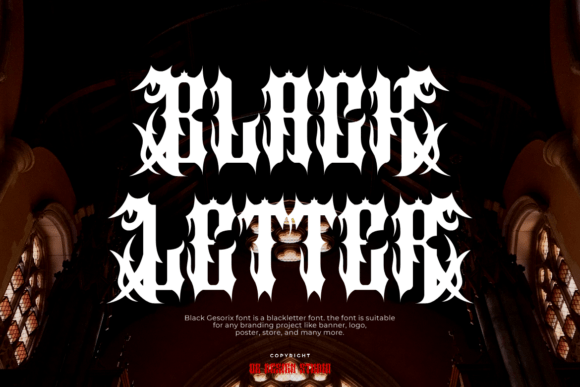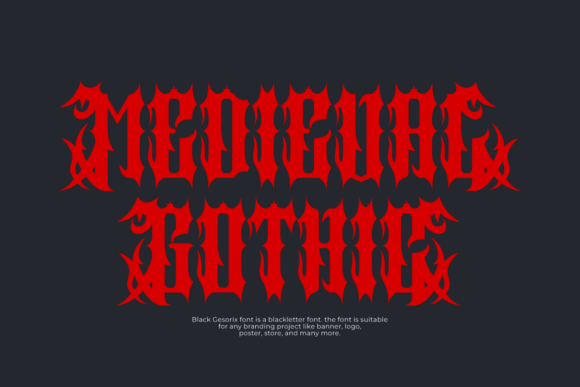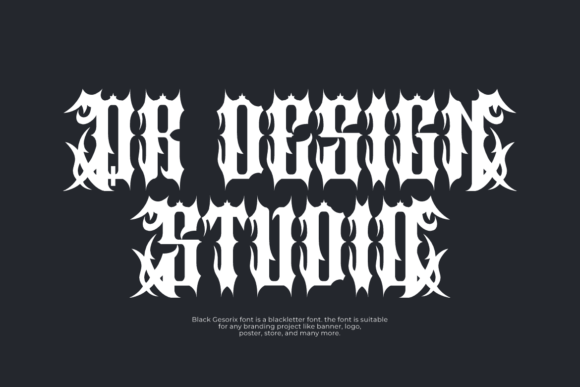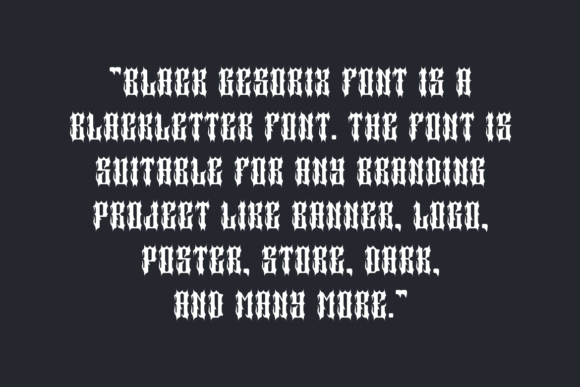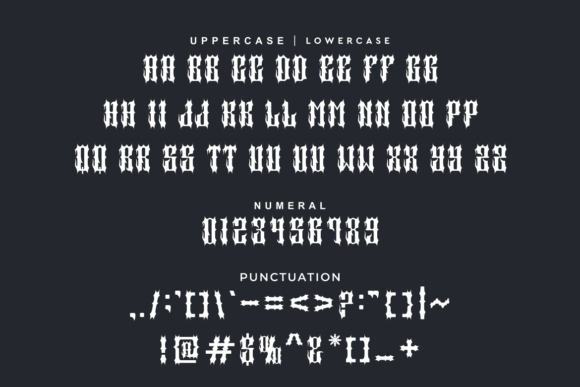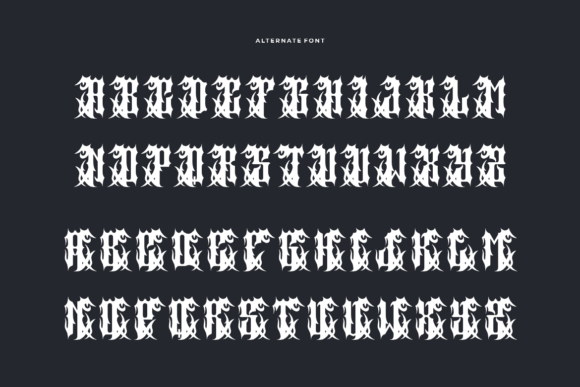
Unleash the Power of Black Gesorix Font: A Fiercely Bold Blackletter Typeface
In the realm of typography, few fonts evoke the same level of intensity and drama as the Black Gesorix Font. This fiercely bold blackletter font is steeped in gothic and medieval influence, making it an ideal choice for designers and crafters seeking to add a touch of darkness and rebellion to their creative projects. With its razor-sharp edges, ornamental strokes, and heavy visual presence, Black Gesorix Font is sure to leave a lasting impression.
A Handcrafted Look with a Rebellious Twist
Black Gesorix Font boasts a handcrafted look that captures the essence of vintage manuscripts. Its unique blend of traditional and modern elements gives it a rebellious twist that’s perfect for metal band logos, tattoo designs, posters, and any other creative project that demands intensity and drama. The font’s distressed texture and irregularities add to its rugged charm, making it an excellent choice for designers seeking to create something truly unique.
Gothic and Medieval Influence
The Black Gesorix Font is deeply rooted in gothic and medieval typography. Its bold, dramatic strokes and intricate ornamentation are reminiscent of ancient manuscripts and illuminated texts. The font’s designers drew inspiration from the ornate lettering styles of the Middle Ages, reinterpreting them with a modern edge. The result is a font that’s both nostalgic and cutting-edge, perfect for designers seeking to create something that stands out from the crowd.
Perfect for Metal Band Logos and Tattoo Designs
Black Gesorix Font is an excellent choice for metal band logos and tattoo designs. Its bold, aggressive aesthetic is sure to appeal to fans of heavy metal music and those who appreciate the art of tattooing. The font’s dark, edgy vibe makes it perfect for creating striking logos, posters, and other visual materials that demand attention. Whether you’re designing a logo for a metal band or creating a tattoo design, Black Gesorix Font is sure to deliver.
Key Features of Black Gesorix Font
- Razor-sharp edges: Black Gesorix Font features razor-sharp edges that give it a bold, aggressive look.
- Ornamental strokes: The font’s ornamental strokes add to its intricate, ornate aesthetic.
- Heavy visual presence: Black Gesorix Font has a heavy visual presence that’s sure to command attention.
- Handcrafted look: The font’s handcrafted look captures the essence of vintage manuscripts.
- Distressed texture: The font’s distressed texture adds to its rugged charm.
Tips for Using Black Gesorix Font
To get the most out of Black Gesorix Font, here are a few tips to keep in mind:
- Use it sparingly: Due to its bold, aggressive aesthetic, it’s best to use Black Gesorix Font sparingly. Use it as a headline or title font, and pair it with a simpler font for body text.
- Experiment with colors: Black Gesorix Font looks great in bold, bright colors. Experiment with different colors to find the one that works best for your design.
- Combine it with other fonts: Black Gesorix Font pairs well with other bold, sans-serif fonts. Experiment with different font combinations to create a unique look.
Black Gesorix Font is a fiercely bold blackletter font that’s perfect for designers and crafters seeking to add a touch of darkness and rebellion to their creative projects. With its razor-sharp edges, ornamental strokes, and heavy visual presence, this font is sure to leave a lasting impression. Whether you’re designing a metal band logo, tattoo design, or poster, Black Gesorix Font is an excellent choice. So why wait? Download Black Gesorix Font today and unleash the power of bold, gothic typography.